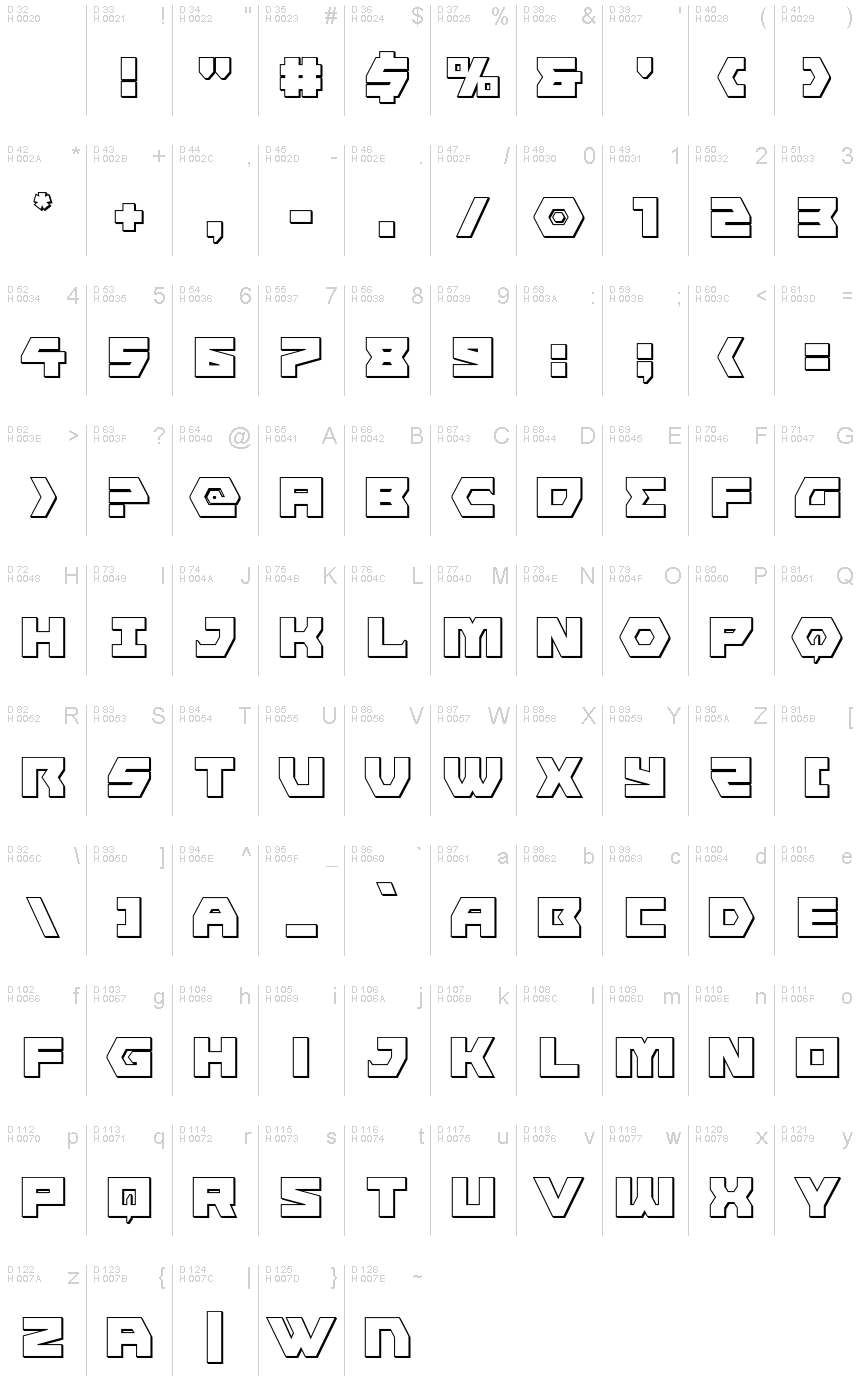
Cyberform 3D
Cyberform 3D, from the Cyberform family by Iconian Fonts, is a striking display font that embodies a bold and futuristic aesthetic. Its 3D style and expanded width give each character a pronounced presence, making it perfect for commanding attention. The bold weight lends a sense of strength and modernity, while the three-dimensional aspect adds depth and visual intrigue.
Ideal for projects that require a contemporary edge, Cyberform 3D excels in digital interfaces, gaming visuals, sci-fi themes, and tech-driven branding. Its unique design ensures readability while delivering an avant-garde look that stands out in any creative context. Whether used for headlines or logos, Cyberform 3D injects a dynamic and forward-thinking vibe into your designs.